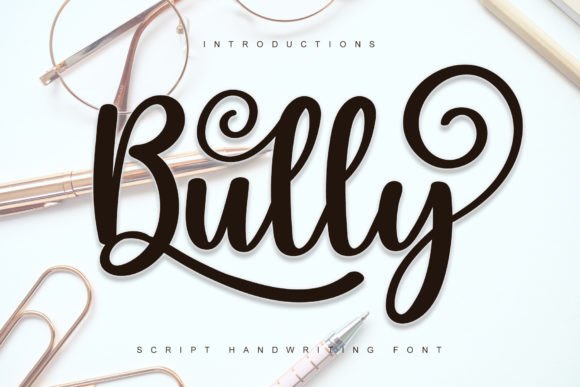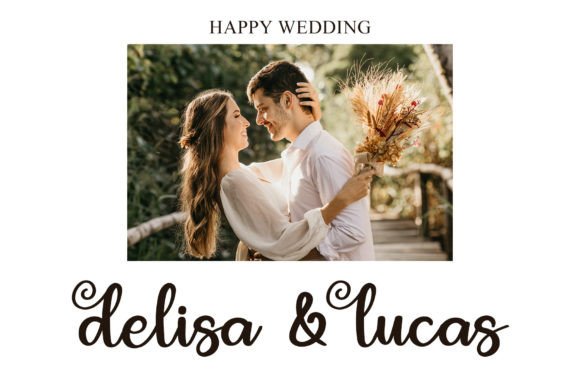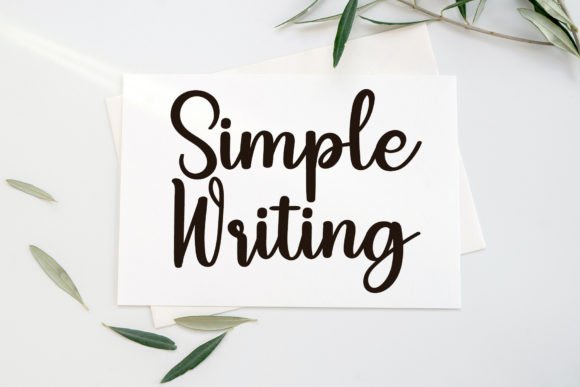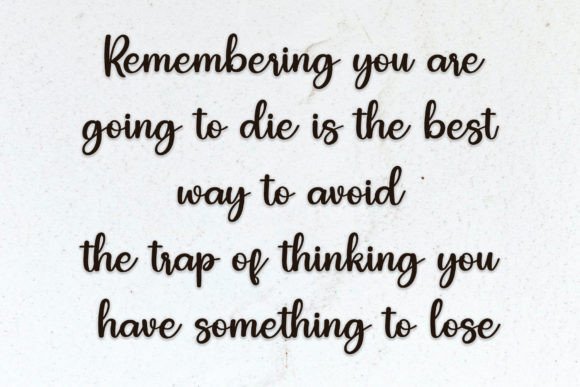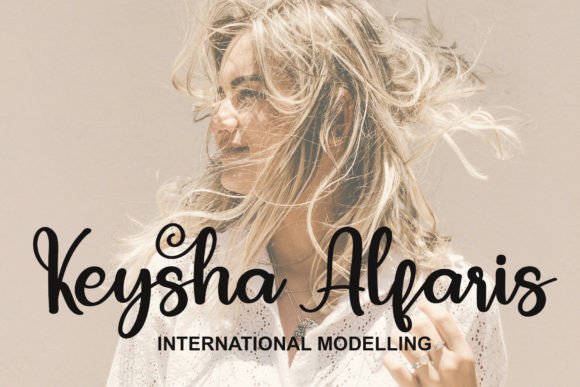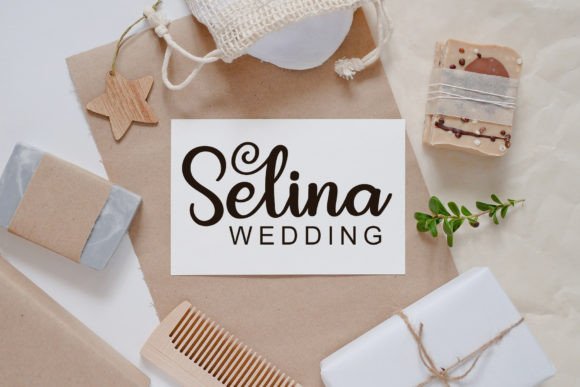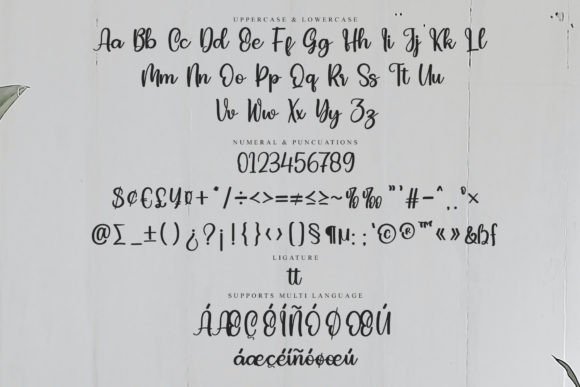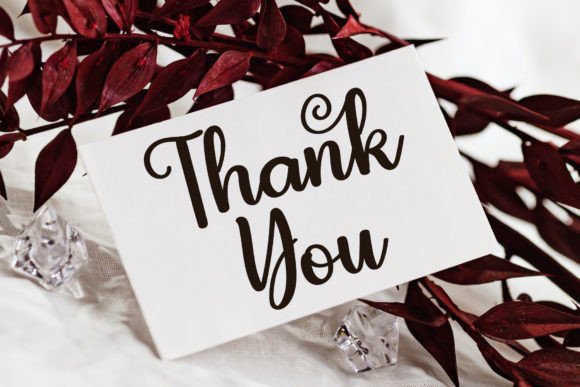
Bully Font
About Bully Font
Bully is a stylish handwritten font crafted to deliver a fresh, modern look across your design projects. This beautifully balanced typeface is inspired by organic penmanship, giving it a personal and handcrafted feel that enhances visual storytelling. If you’re searching for a unique and artistic addition to your font library, the Bully font download is a must-have.
Thanks to its clean yet expressive design, Bully brings an authentic handwritten touch to any creative setting. Whether you’re working on digital branding or personalized stationery, this font adds a refined sense of warmth and style.
Where to Use Bully Font
The versatility of Bully makes it a great choice for a wide variety of use cases:
• Greeting Cards & Invitations – Add a heartfelt personal touch to your messages
• Product Packaging – Perfect for artisanal goods, skincare, food, and eco-friendly products
• Logos & Branding – Create a bold and expressive identity
• Social Media Graphics – Great for Instagram quotes, banners, and pins
• Headlines & Posters – Eye-catching and modern without being overly dramatic
• DIY & Craft Projects – Ideal for planners, journals, and scrapbooks
This font was built with usability and elegance in mind. Bully includes:
• Full uppercase and lowercase letters
• Clean and consistent strokes
• Numerals and standard punctuation
• Smooth and legible design for both print and web
• PUA encoded for easy access to all characters
• Multilingual support for extended character sets
From casual to modern minimalism, Bully covers all design needs with ease and style.
Why Choose Bully Font?
Bully brings together clarity and in one cohesive handwritten typeface. Unlike rigid sans-serifs or overly ornate scripts, this font maintains a balance of and individuality. It offers enough flair to stand out while staying highly.